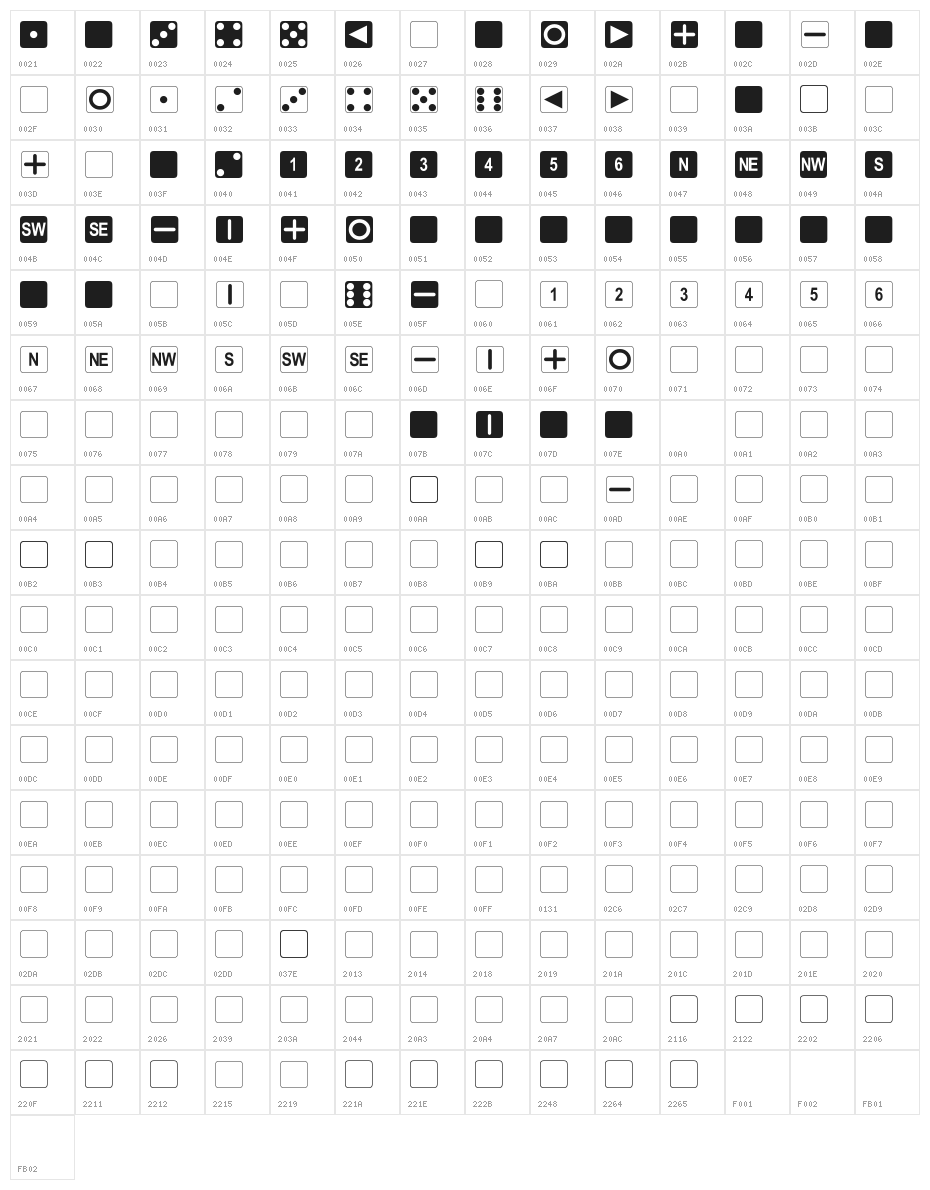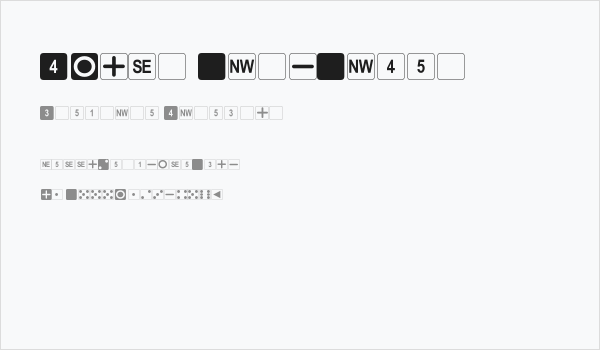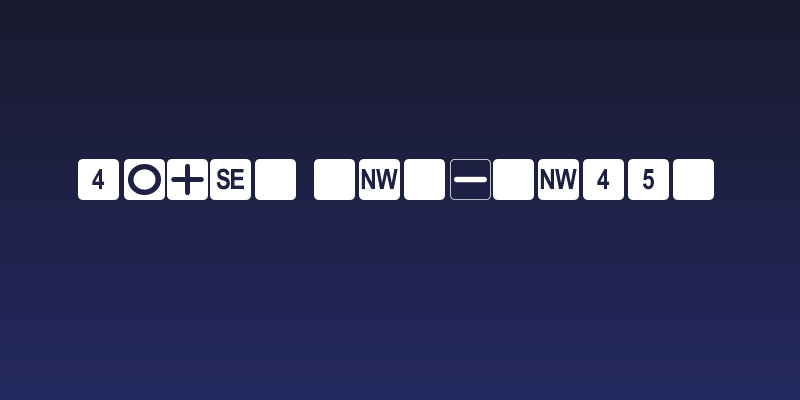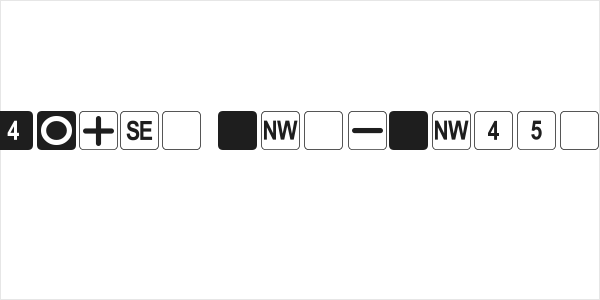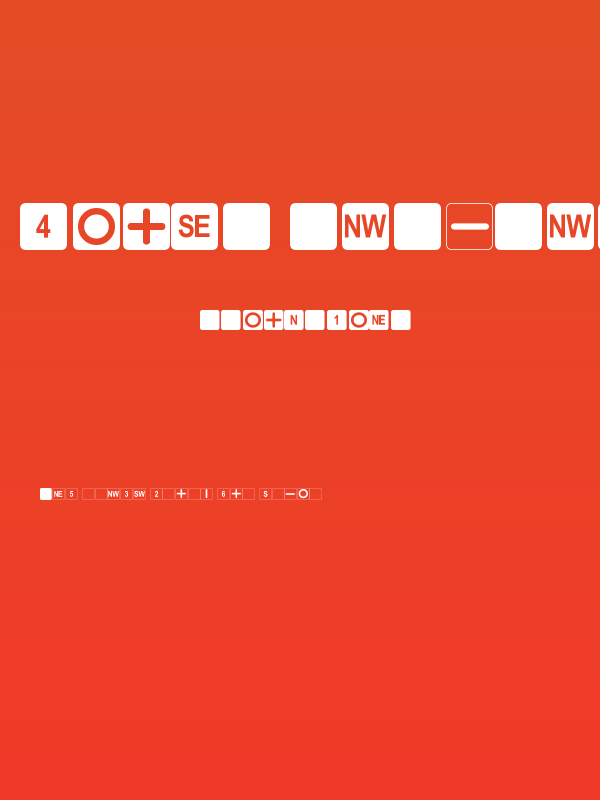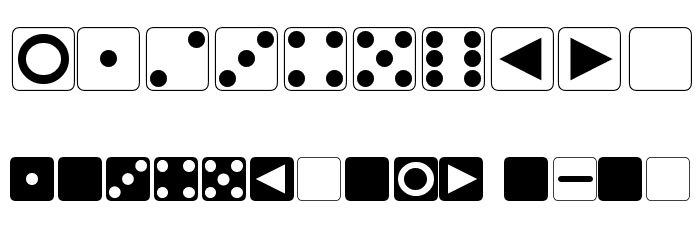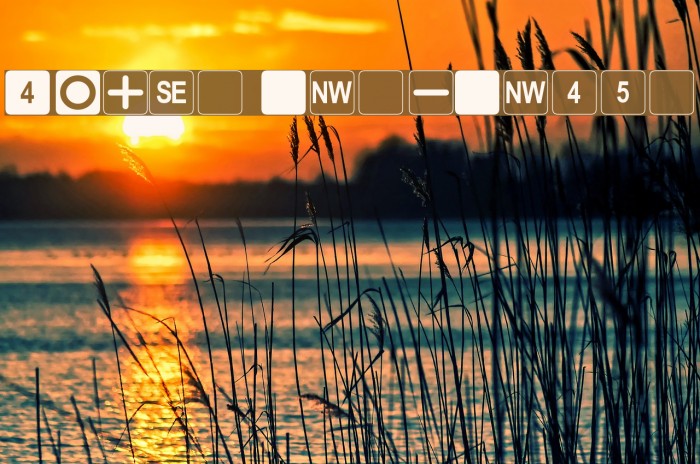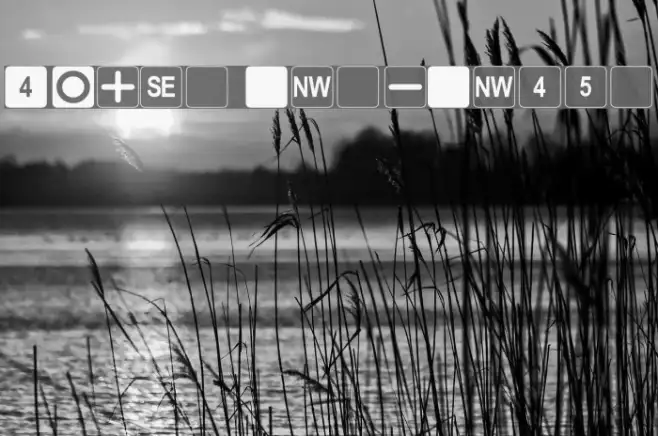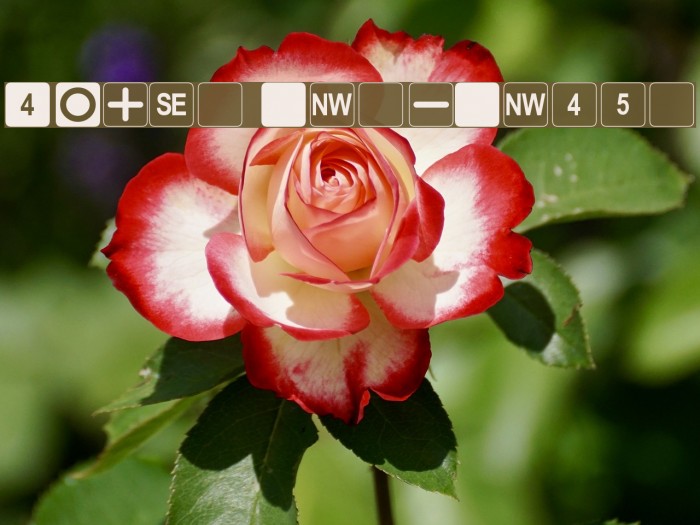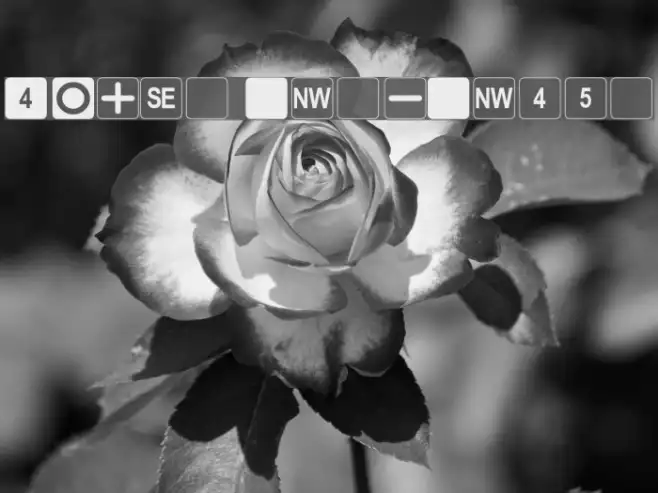
DPoly Six-Sider Font
DPoly Six-Sider Description
This font features a unique design with characters enclosed in square borders, reminiscent of dice faces. The numbers 1 to 6 are displayed with dots similar to those on dice, while directional indicators like N, NE, NW, S, SW, and SE are clearly marked. The font includes geometric symbols such as circles, plus signs, and arrows, all presented in a bold, blocky style. The overall appearance is playful and distinctive, making it suitable for creative and thematic projects. The use of filled and outlined squares adds a layer of visual interest and versatility.
| Overall Style | Playful, Thematic |
| Use Case | Logos, Game design, Themed graphics |
| Proposed Projects | Board games, educational materials, playful branding, or themed event invitations. |